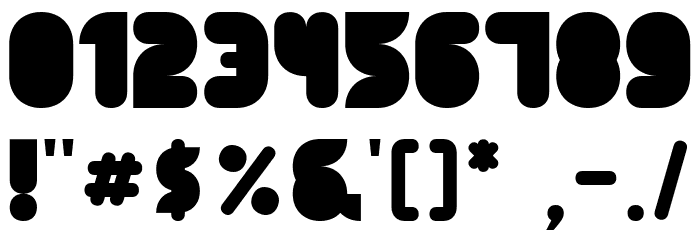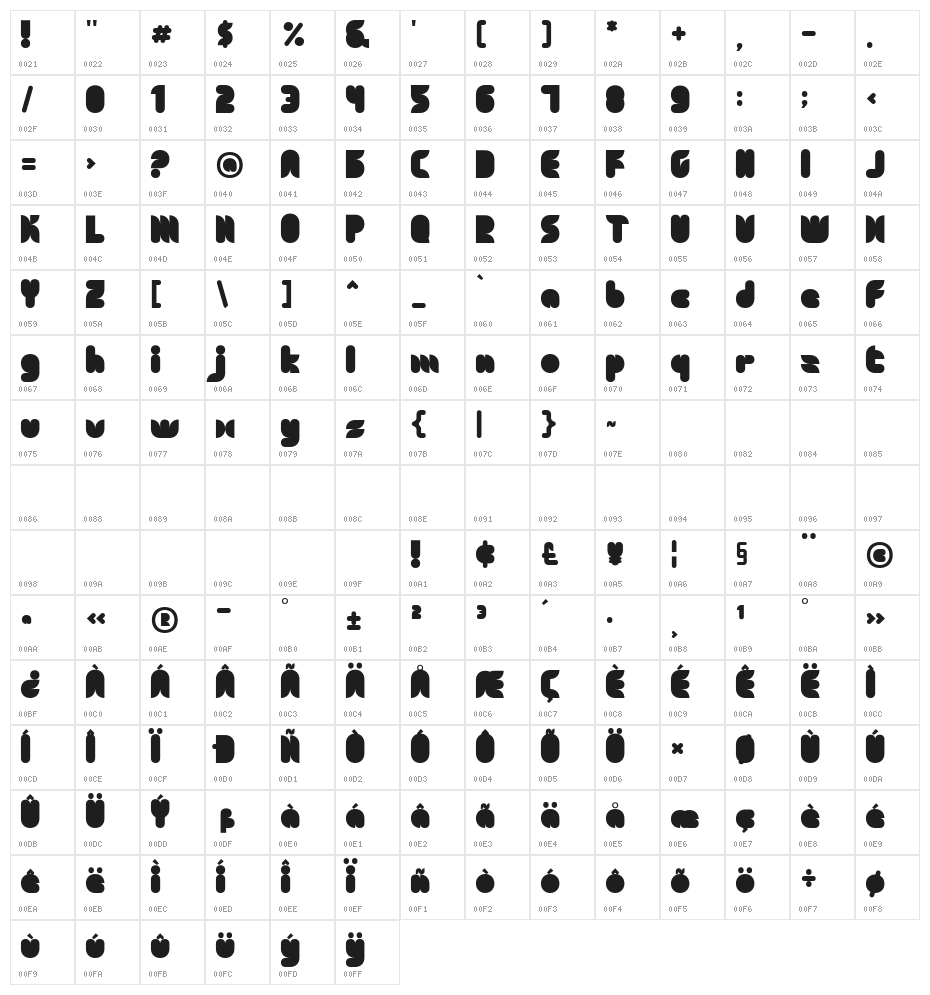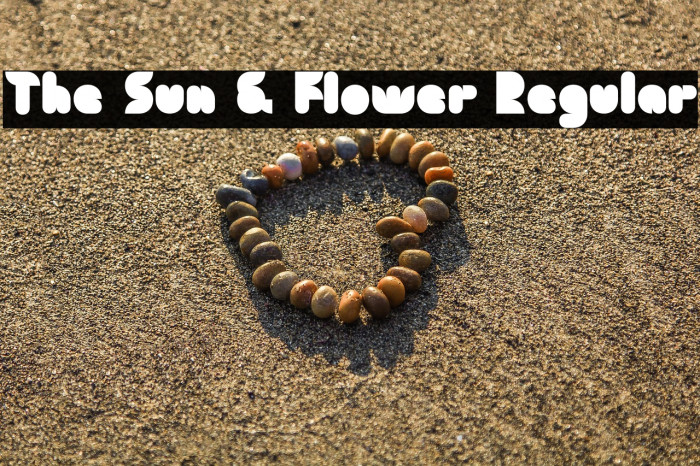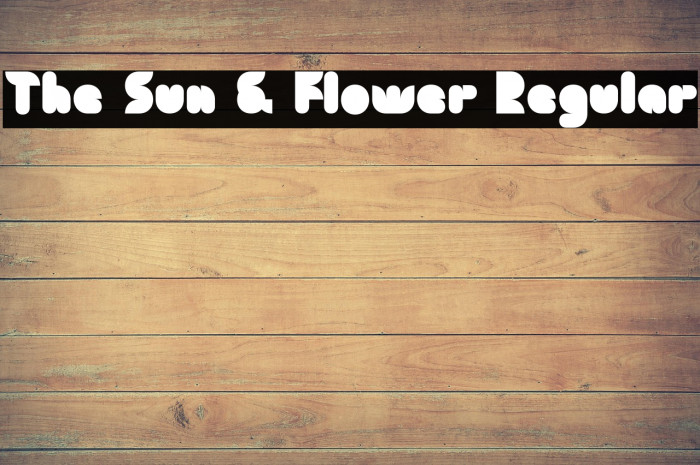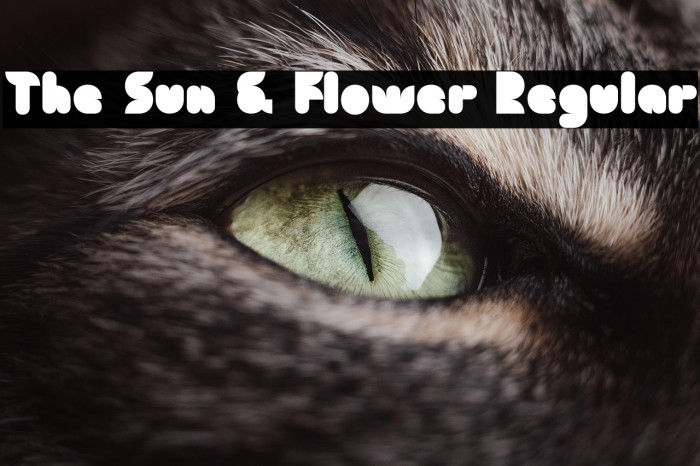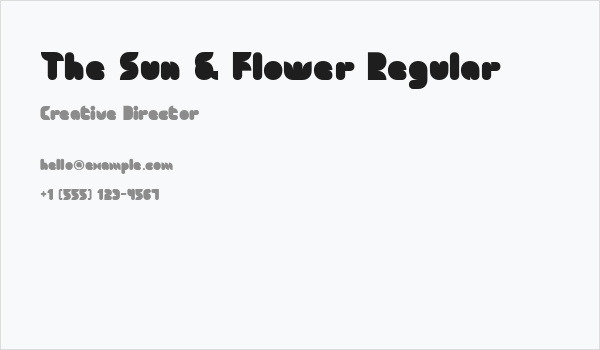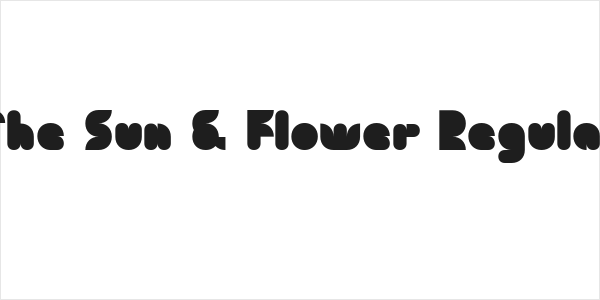
The Sun & Flower Regular Font
The Sun & Flower Regular Description
This font features a bold and playful design with rounded, geometric shapes that create a sense of fun and modernity. The characters are thick and substantial, with a unique style that combines both curves and straight edges. The uppercase and lowercase letters maintain a consistent weight, giving the font a cohesive look. Numbers and special characters follow the same design principles, ensuring uniformity across all elements. This font's distinct appearance makes it stand out, making it ideal for eye-catching designs.
| Proposed Projects | Ideal for posters, branding, packaging, and any project that requires a bold, attention-grabbing typeface. |